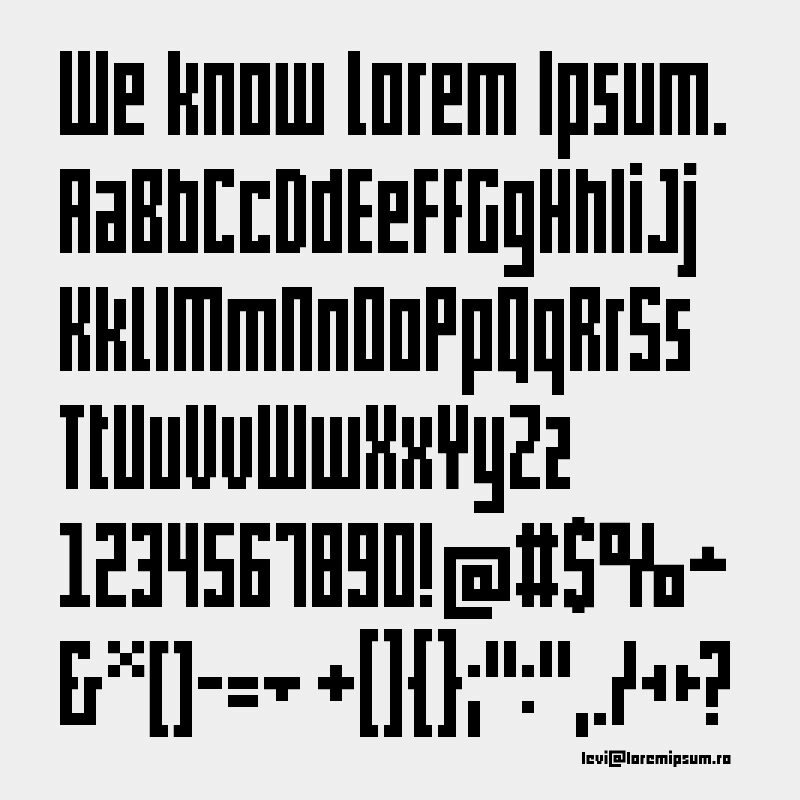
Pxlxxlcond is a free condensed pixel font with towering caps and a spare, mechanical profile. Its letters are extremely narrow, with long straight runs, squared joins, and abrupt cut-ins that break up the silhouettes. The generous internal gaps keep the dense vertical strokes from becoming a solid fence.
Circuit diagrams make a natural backdrop for its rigid verticals. The lettering fits arcade title screens, techno event posters, music packaging, and futuristic editorial graphics, where cables, bars, or interface lines can extend its upright shapes into the surrounding illustration.
The condensed option for pxlxxl.
pxlxxlcond